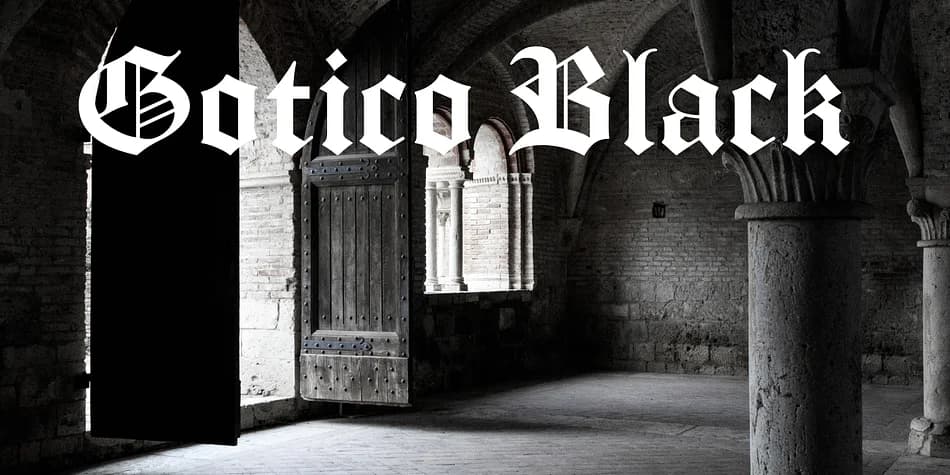
When you're creating a vintage wedding invitation suite or designing a Gothic-inspired book cover, a strong blackletter typeface becomes your foundation. Gotico Black, created by FontHaus, channels that authentic medieval sensibility into a working display font. This typeface has real history behind it, revived from a design that first appeared in Spain over a century ago from an independent type foundry, and that heritage shows in the character of every stroke.
Blackletter scripts like Gotico find their strongest voice in specific contexts: formal invitation sets with ornate details, Etsy vintage product labels, luxury packaging for craft distilleries or artisanal confectionery, and decorative signage for bookstores and antique dealers. The weight of the letterforms carries visual authority all on its own, without relying on flourishes or extra embellishment. You can set it large on book covers and spines where the intricate strokes read with clarity, or use it smaller on product packaging where it establishes a sense of tradition and craftsmanship.
What sets Gotico Black apart is how cleanly it performs at display sizes, where each letter's detail becomes visible and contributes to the overall presence. The consistent weight maintains readability even when you're setting it at larger point sizes for headlines and focal points. Combine it with something simpler, like a clean sans-serif for body copy, and you've immediately created visual contrast and hierarchy. Grab it on Creative Fabrica to bring authentic historical depth to your next project.
- Ornate, Gothic
- Logos, Certificates
- medieval themes, band merch, and tattoo lettering
- a clean sans-serif for body text
Gotico Black Font is a blackletter font that shines as a display or heading face. Pair it with a clean serif or sans-serif font for body text β the contrast creates a clear hierarchy while the two styles stay balanced and easy to read.